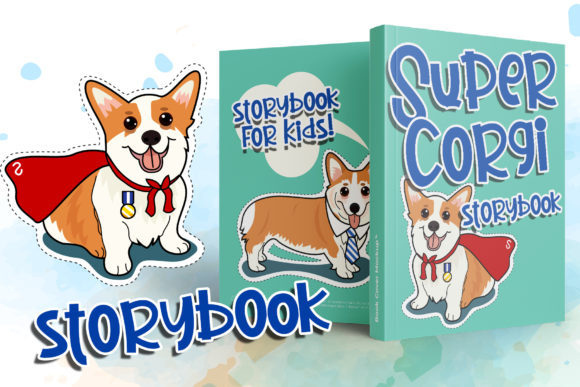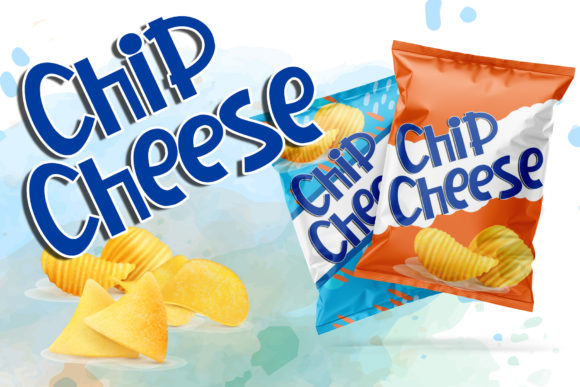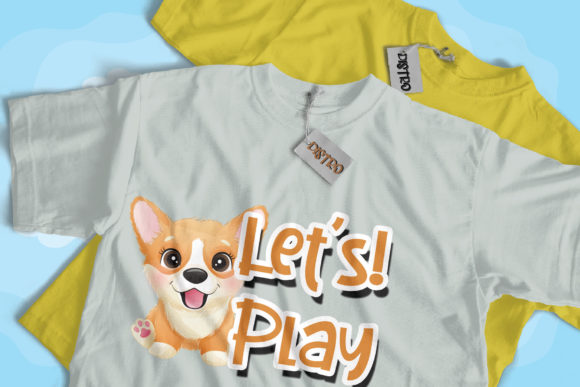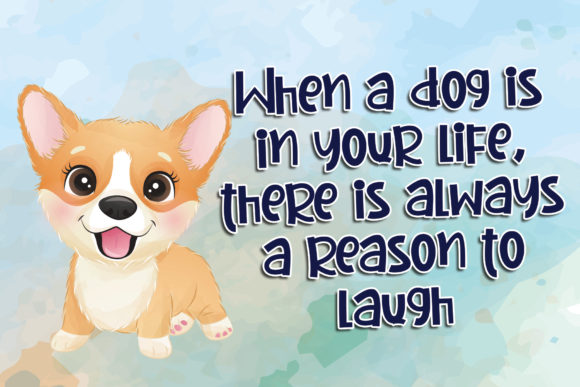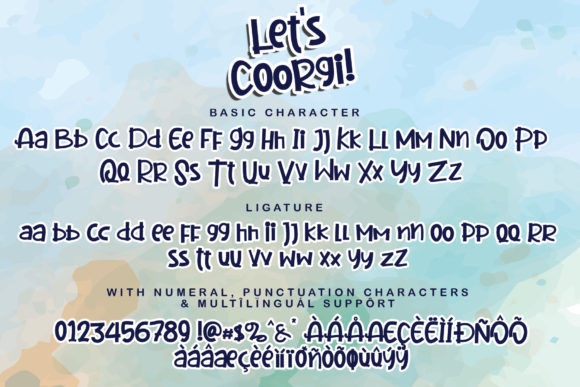
Introduction to Let’s Coorgi! Font
Let’s Coorgi.
is a cute display font, designed to brighten up any school or kids project This enchanting and colorful font will turn any creative idea into a true standout.
Key Features of Let’s Coorgi! Font